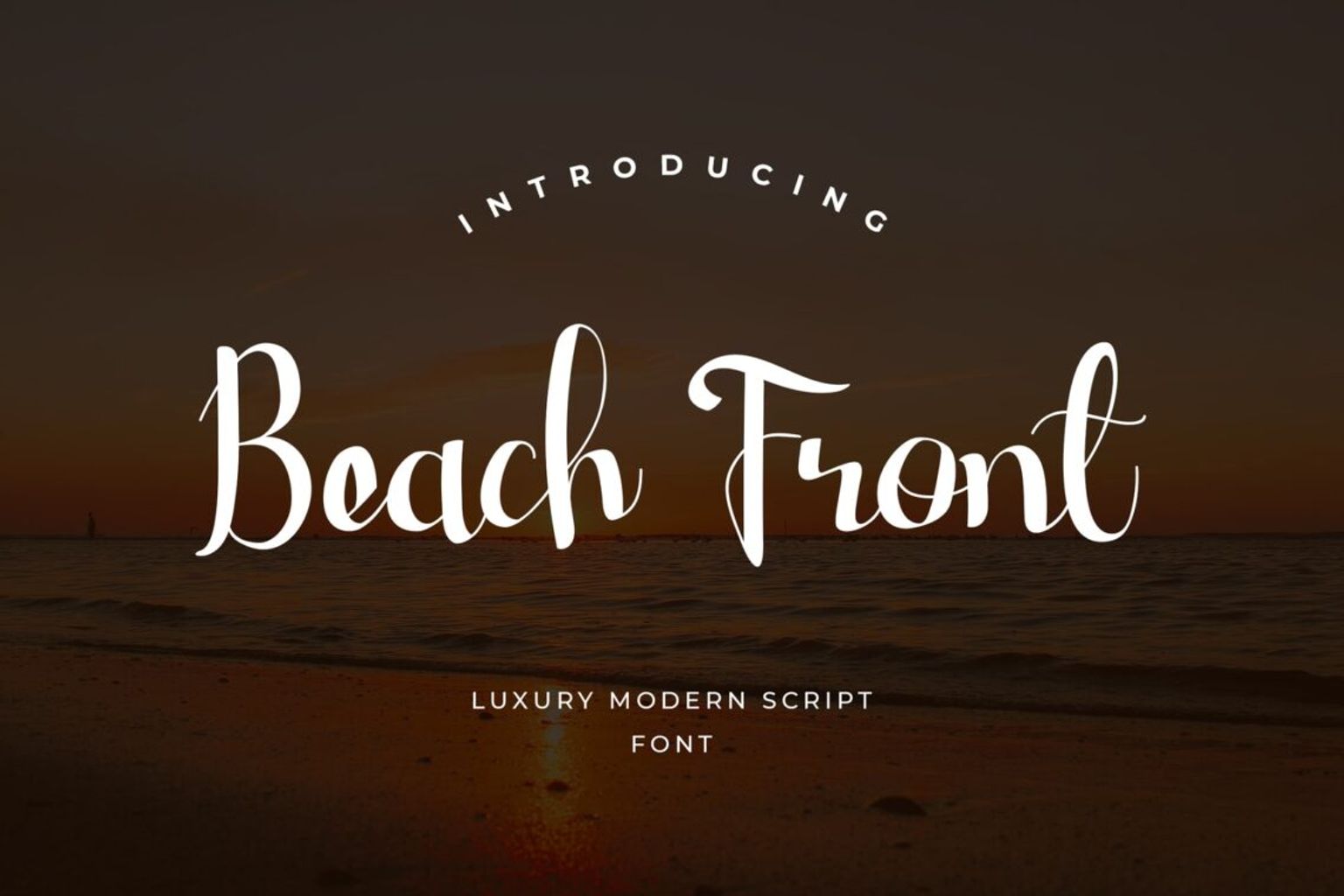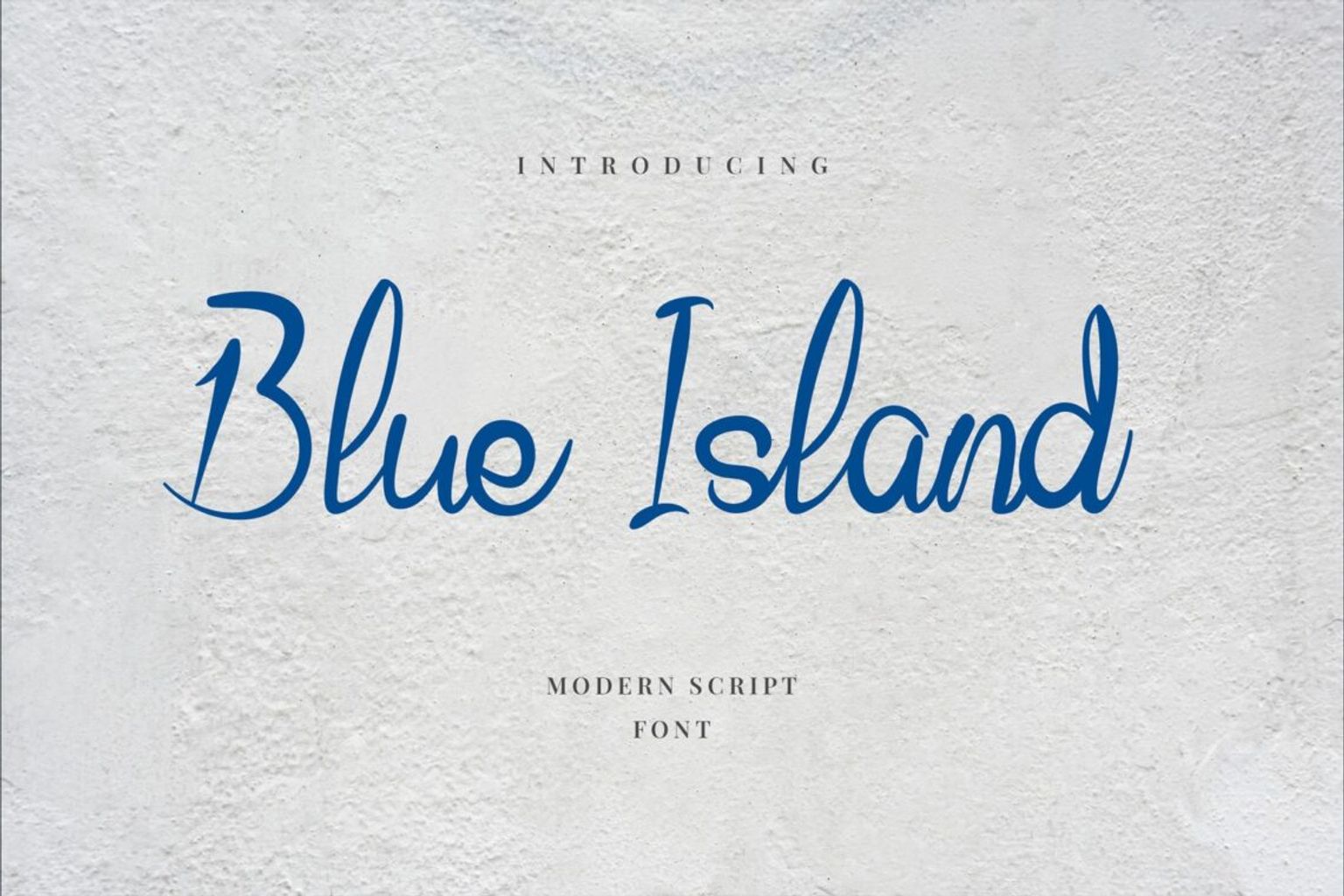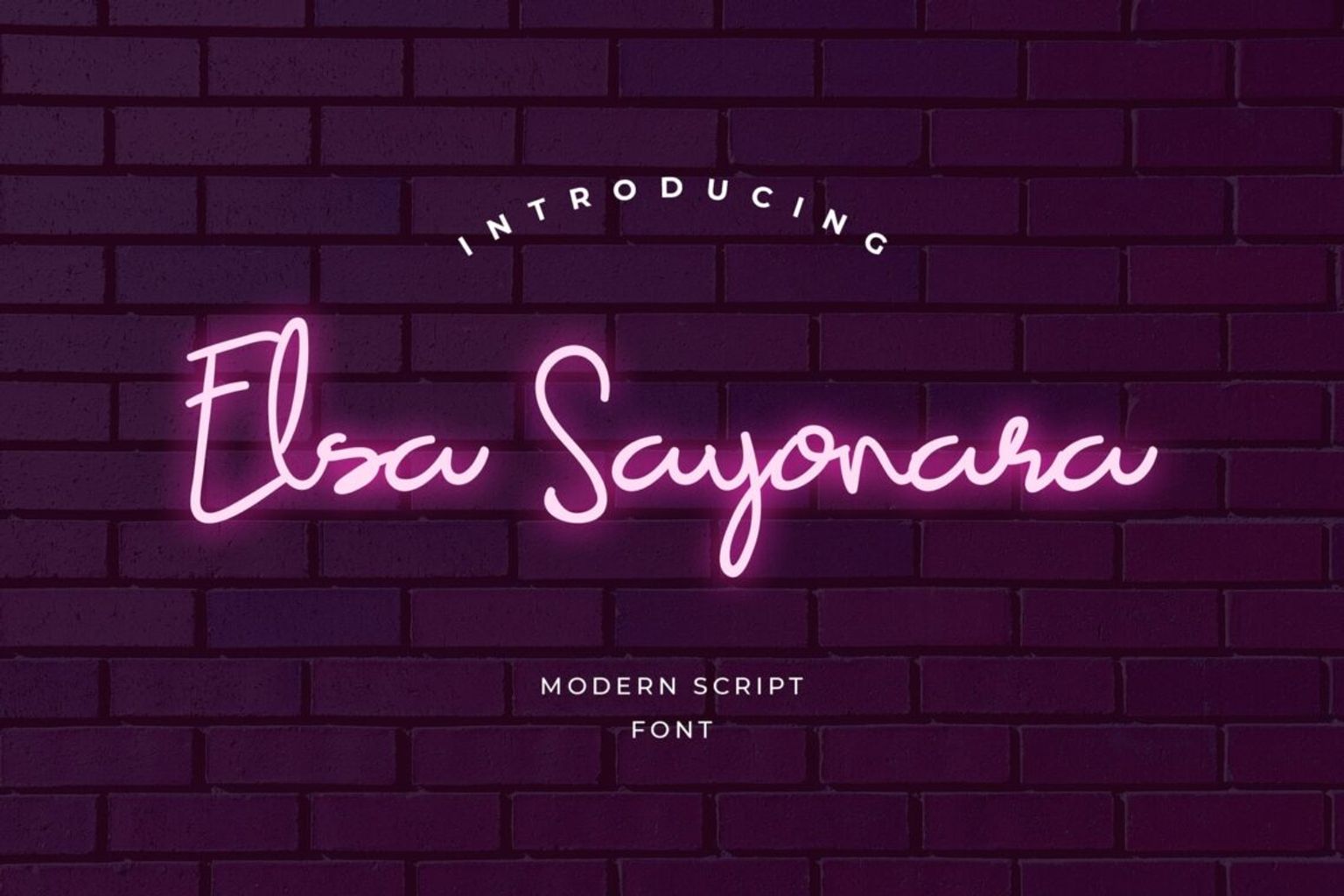
40 Best Fonts for Branding
here are 40 best font for branding. Enjoy the collection of Font Brand by UI Creative here.
1. Head Capital Display
This is the way how you put it, in edge, in the professional layout, or in the top of paper size. The uppersize in the first letter of word has a great style. It looks like a hand writtng font and package in exclusive ink. it is classic but worth.
2. Royal Kingsman Handbrush Typeface
This font contains attractive design. For happy and romantic scary contents, try to insert it. You could change its background and make it looks professional. Whenever you want to promote a new brand, a new short story, or a new novel, do not skip this font.
3. Velodrome Display
A downline of San Serif applies in this font. It is suitable to be used for games title, hip hop music title, and every project in fantastic category. The blend colors implement modern touch. Get it only in UI Creative main website in affordable cost. This new face of typography is adorable both for mobile users and desktop users.
4. Neogordon Serif Display Font
brand name font design by this font looks attractive. You may think it is quite difficult to find formal font for formal event. Neogordon comes as serif type. Its unique edge and curve, make it becomes the suit font in semi formal and formal event. You will see its vintage style and applied it in invitation, title of the journal and more publishing contents in social media. Even for your catalog of new season products, it is worth.
5. Vertilaser Handrawn Script
It is great for any cultural products like barong and eveerything related to culture.
6. Warangga Script Typeface
Enjoy on having this unique touch of font for your fashion product. The combination color and dots in it make it looks brighter. Therefore, it is suitable for children movie, children books, magazine for teenagers, and something to be deal.
7. Black Fold
A brand for vintage products will look brave and clear by this image. The bold uppercase letter looks steady to hold your brand.
8. Strongvila Handrawn Typeface
brand font design for cheerful and taste good. Keep the good style on its color.
9. Blue Island Modern Script
A good point if you have modern Concept of business. Uppercase in break parts make it looks artistic and stylish. San Serif font like this give a strong image for public.
10. Elsa Sayonara Modern Script
brand name font design sometimes should be cheerful and light. Vintage and retro are combine in this font style. Therefore, it is suitable for packaging.
11. Quinn Marriot
Handrawn and it looks like signature. Made by hands. This is the way how you put it, in edge, in the professional layout, or in the top of paper size. The uppersize in the first letter of word has a great style. It looks like a hand writting font and package in exclusive ink.
12. Beach Front Modern Script
fonts beach front modern scriptbrand logo design font for great style. Famous with its artistic touch. enjoy to have it in T Shirt and tote bags. You could change its background and make it looks professional. Whenever you want to promote a new brand, a new short story, or a new novel, do not skip this font.
13. Bandonde Versatile Serif
Opening distro needs something unique. Try this to make your T Shirt collection famous. Get it only in UI Creative main website in affordable cost. This new face of typography is adorable both for mobile users and desktop users.
14. Valibrush Handwritten
Food and beverages logo needs something colorful like this. brand font design from Vallibrush makes everything looks tasty.
15. Rogertone Signature Script
Casual style and winter collection needs something white and clear like this font.
16. Rich Rebecca Signature Script
brand font design online by this font is pretty. Enjoying a cafe with something rustic like this. Feel if you are in the 19 th century.
17. Monzana Brush Typeface
To help your hotel and travel agencies look more modern, try this. It is suitable for villa too.
18. Oregon Point Hadwritten
Good font comes from the good vibe of brand. taste good for this font for packaging label.